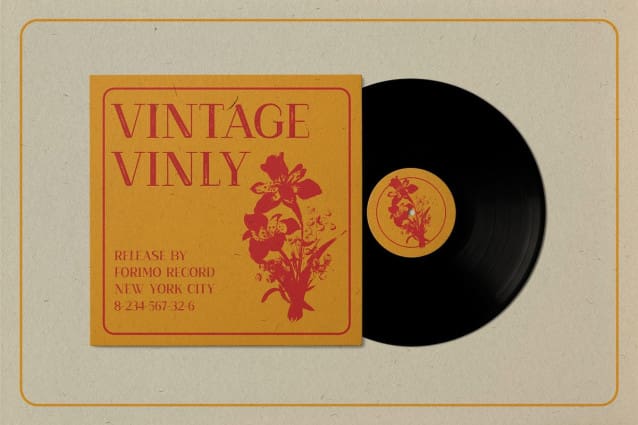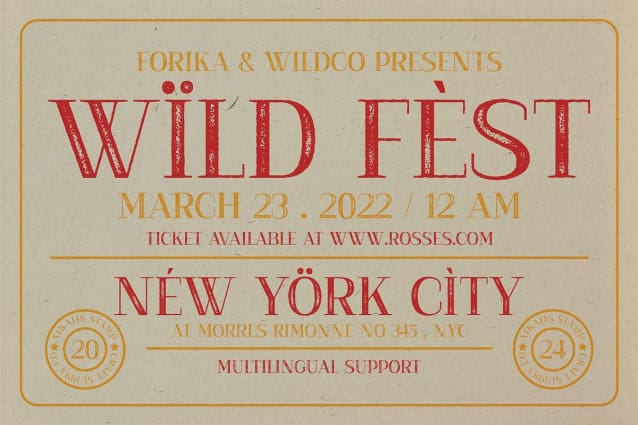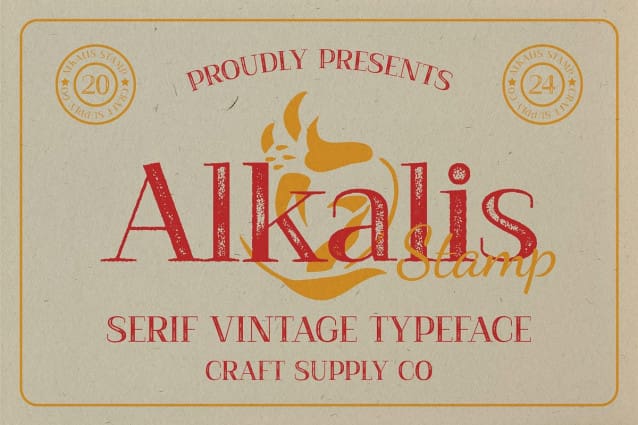
Alkalis Stamp Font
Alkalis Stamp Font: Bold and Striking Display Typeface. High Contrast Serif Design Alkalis Stamp boasts a high contrast serif design that catches the eye and commands attention. Its distinct letterforms stand out with sharp contrasts, making it ideal for captivating displays.
Stamp Effect With its unique stamp effect, This font exudes a rugged and authentic aesthetic. The rough texture adds character and depth to each character, enhancing its visual impact.
Perfect for Display Use Designed specifically for display purposes, This font excels in headline, title, and poster applications. Its bold presence ensures that your message is delivered with maximum impact and readability.
Versatile Applications Despite its bold appearance, This font is versatile and can be used across various design projects. From branding and advertising to packaging and signage, it adds a touch of boldness and personality.
Bold Display Typeface with Vintage Appeal This font combines high contrast serif design with a rugged stamp effect, resulting in a typeface that is both bold and striking. Whether used for large headlines or subtle accents, Alkalis Stamp delivers exceptional visual impact and versatility in design applications.